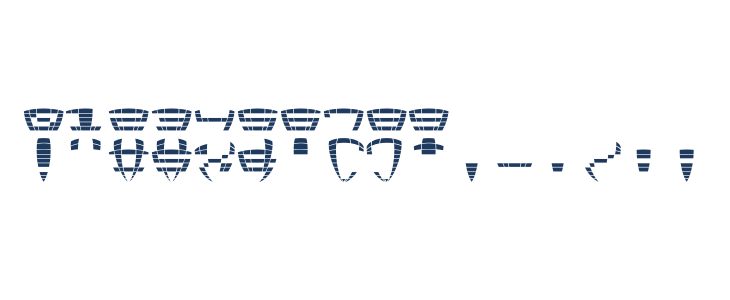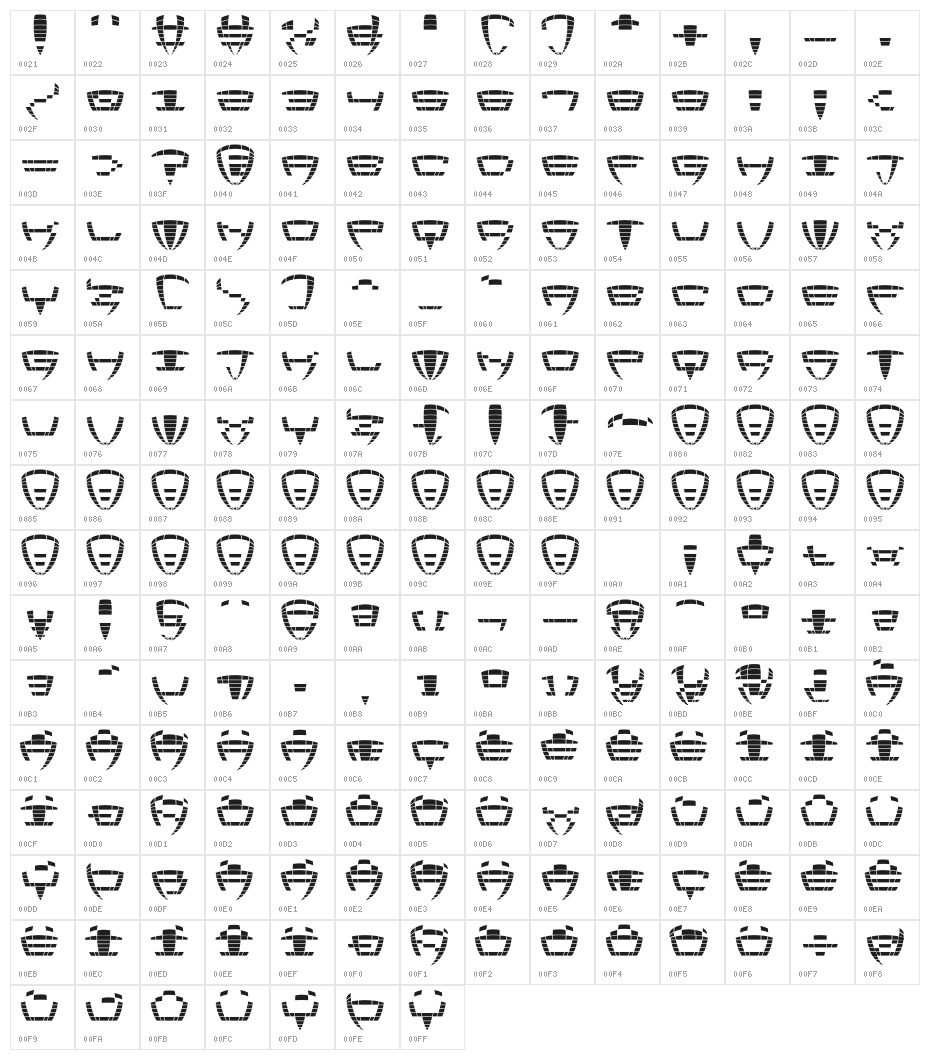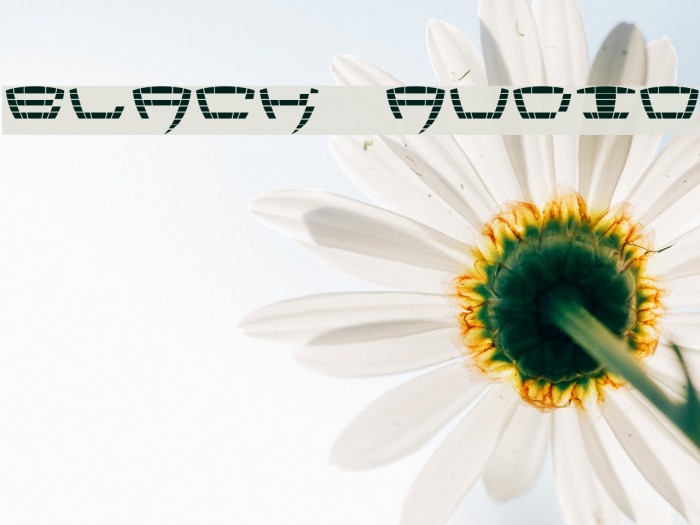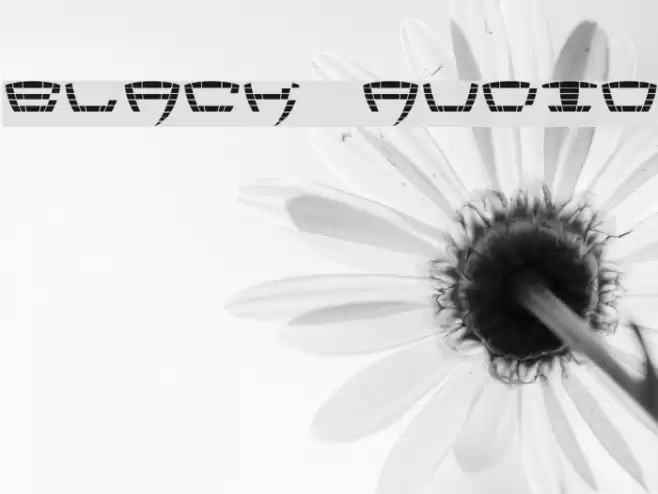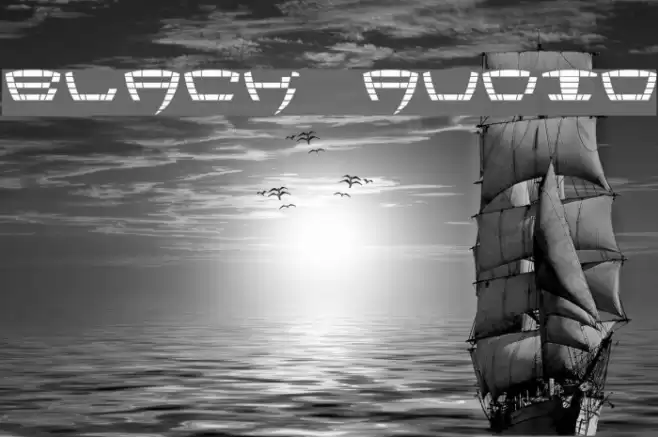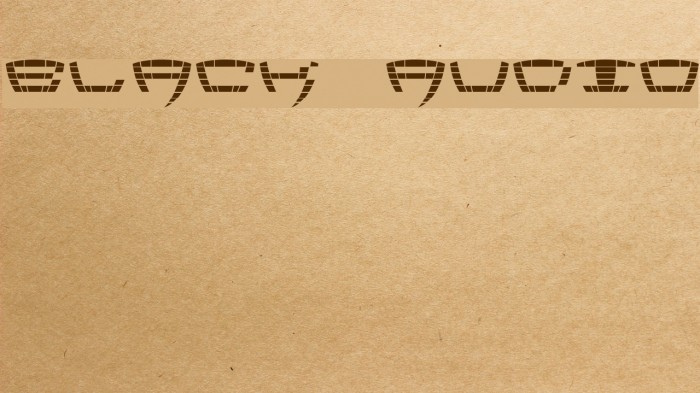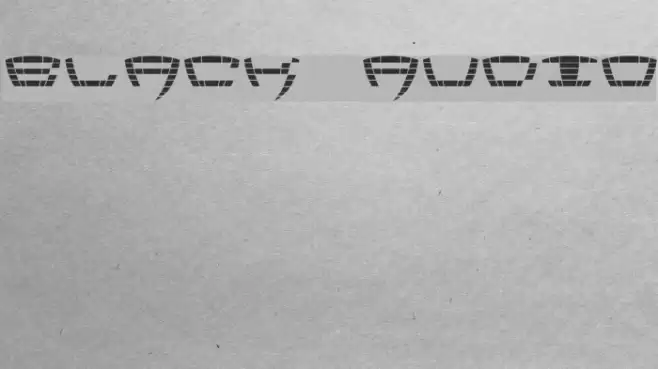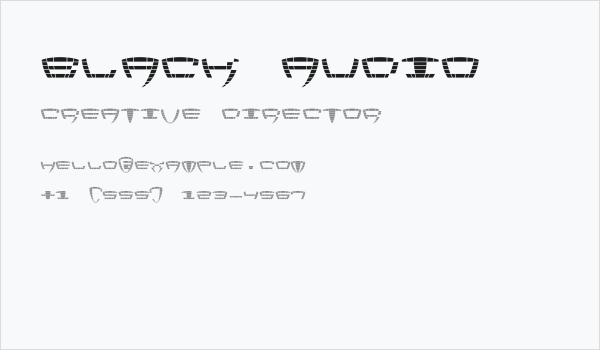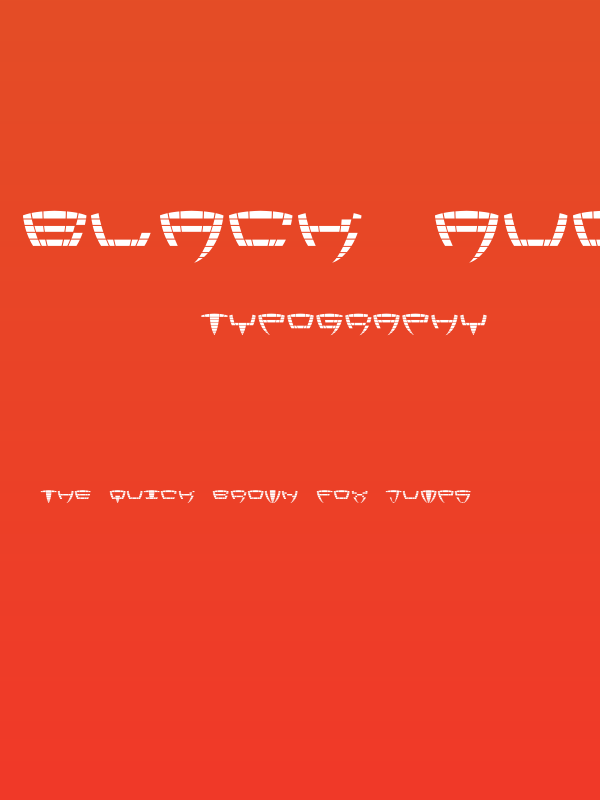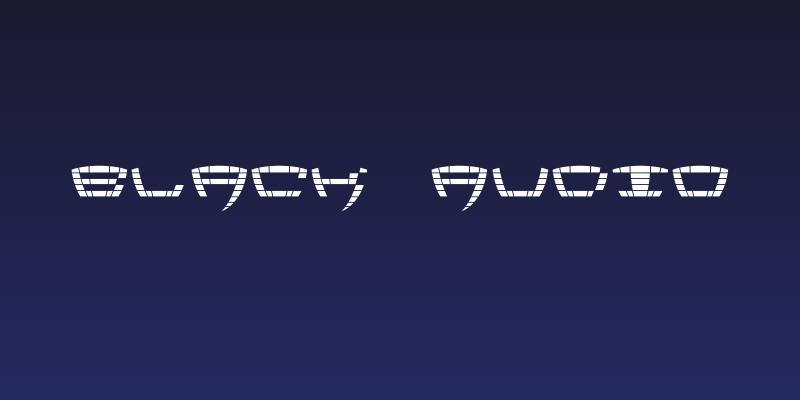
Black Audio Font
Black Audio Description
This font features a futuristic and digital aesthetic, characterized by its segmented and angular design. Each character is composed of distinct, block-like segments that create a sense of movement and modernity. The uppercase and lowercase letters maintain a consistent style, with sharp edges and a geometric form that suggests a high-tech or sci-fi theme. The numbers and special characters follow the same segmented pattern, ensuring a cohesive look across all elements. This font is ideal for projects that require a bold and eye-catching display, such as technology branding, video game titles, or futuristic event posters.
| Proposed Projects | Ideal for technology branding, sci-fi themed projects, video game titles, and futuristic event posters. |